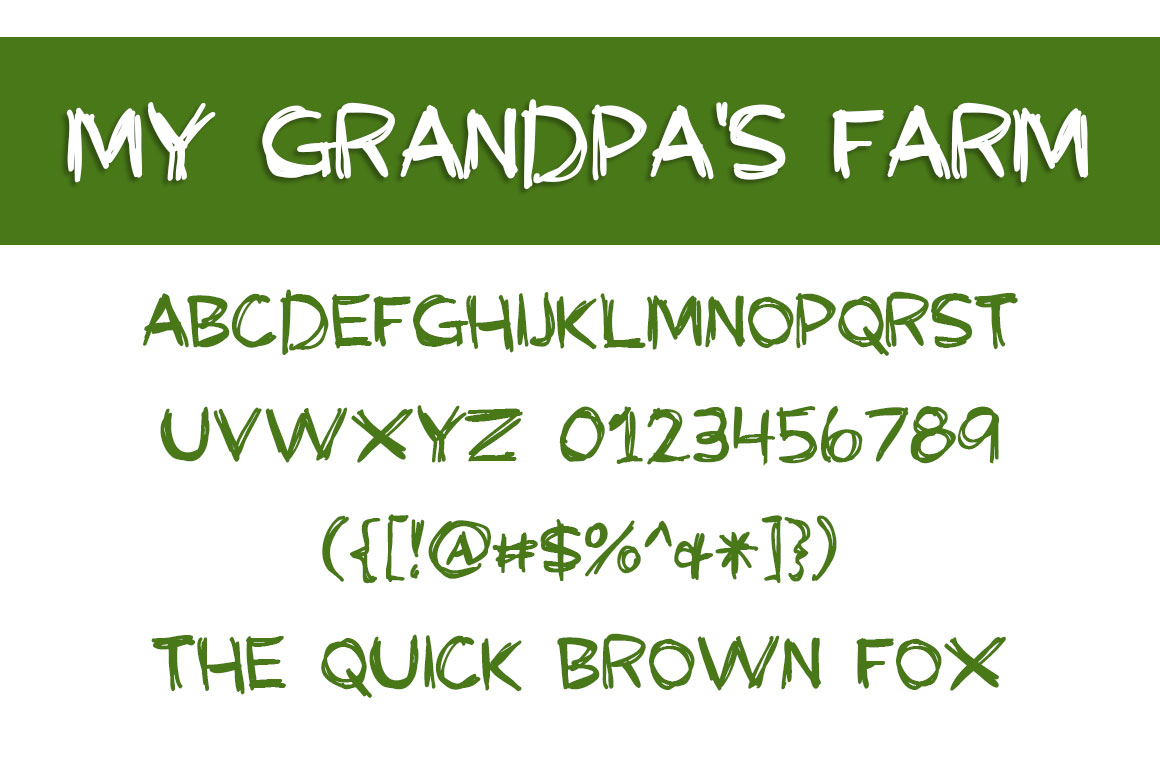
Introduction to My Grandpa’s Farm Font
A sketchy handwritten font.
A sketchy handwritten font
My Grandpa’s Farm Font offers exceptional quality and versatility, making it a valuable addition to your design toolkit. Whether you’re creating for personal projects or commercial use, My Grandpa’s Farm Font delivers professional results.